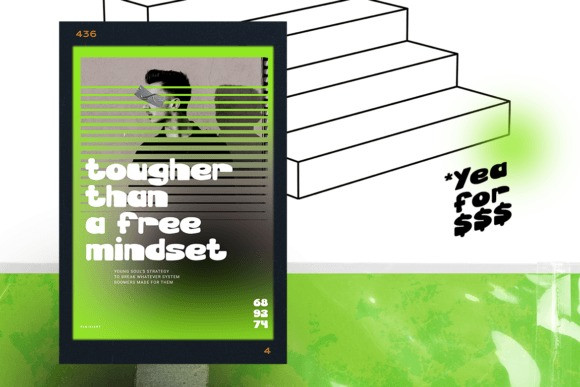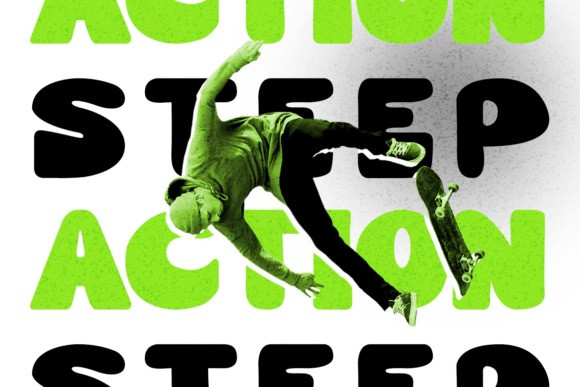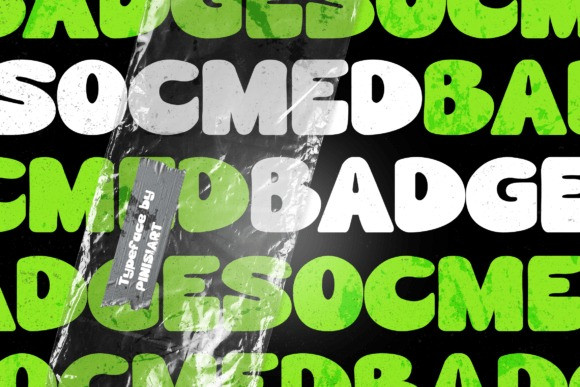
Socmed Badge Font
Socmed Badge Font is a cute, friendly, and playful display font perfect for children’s books, online games, stationery, school supplies, posters, movie titles, Youtube covers, thumbnails, social media posts, and many more. Add it now to your fonts library, and let it inspire your creativity!